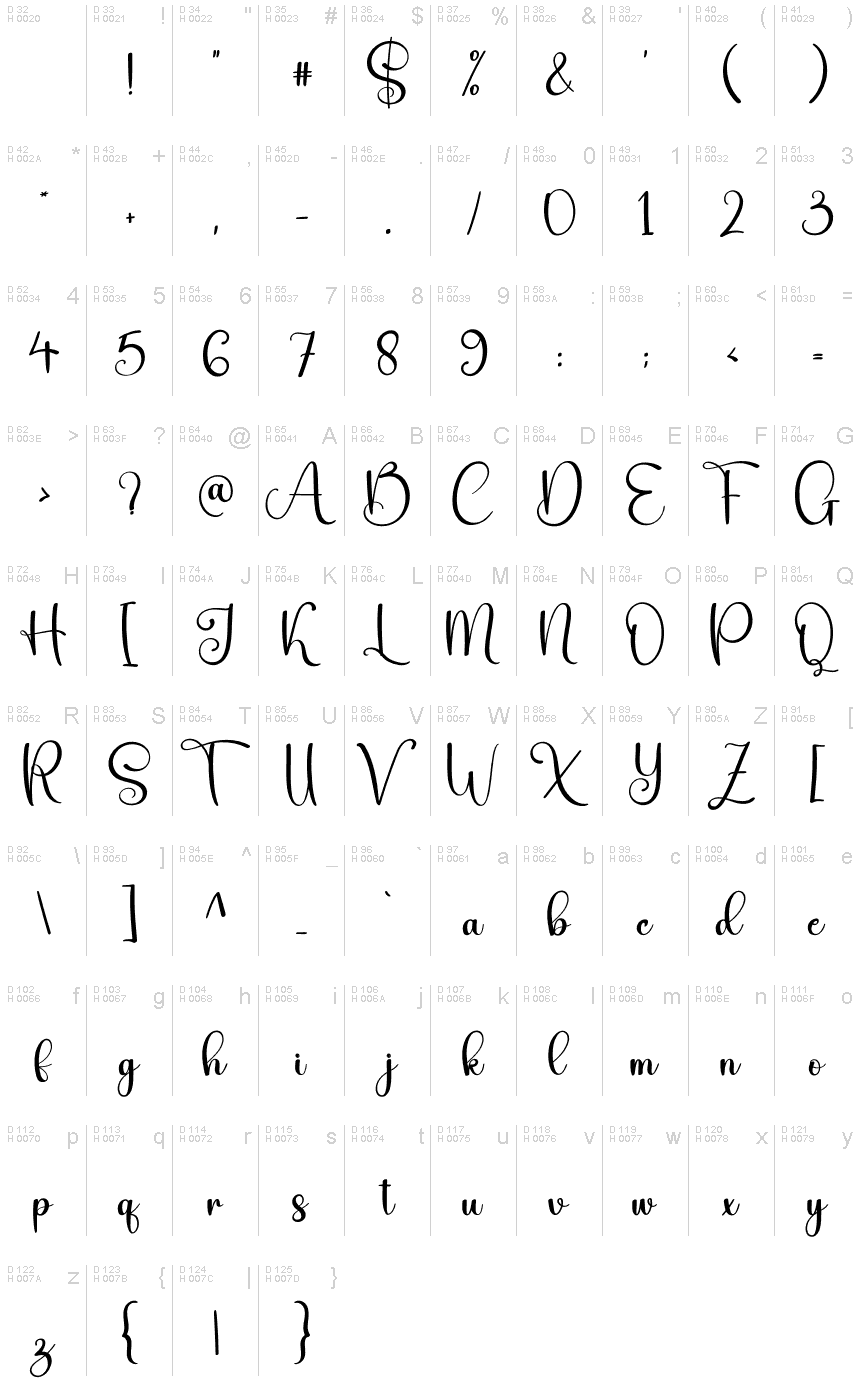
Monday
Monday, a captivating calligraphy font crafted by Harlek Studio, effortlessly infuses elegance and sophistication into any project.
With its semi-light weight, this font lends an air of delicacy and grace to wedding invitations, fashion magazines, and luxury branding. Its flowing lines and graceful curves evoke feelings of romance and artistry, making it the perfect choice for creating stunning logos or beautiful quotes for social media graphics.
Monday's unique style adds a touch of refined beauty to any design endeavor, ensuring that your work stands out with timeless allure.